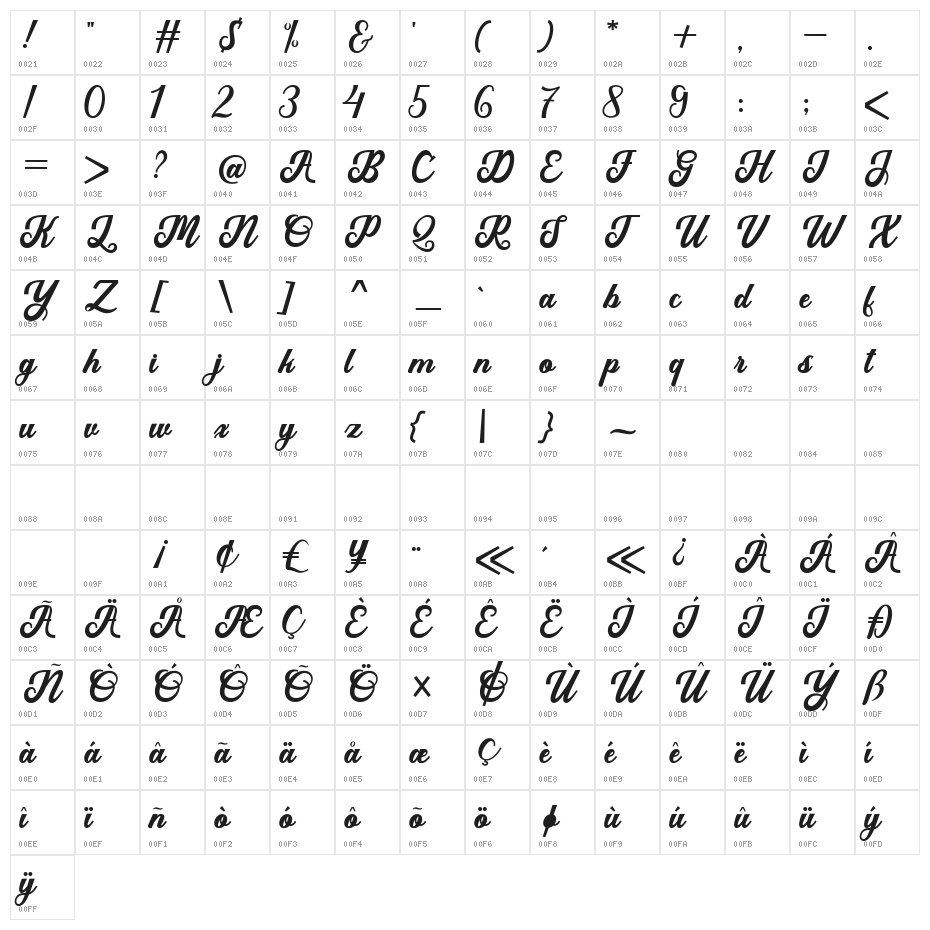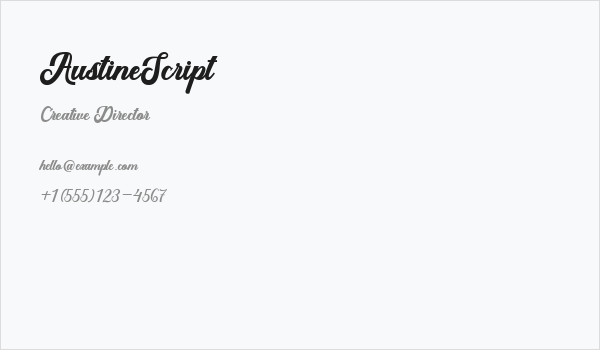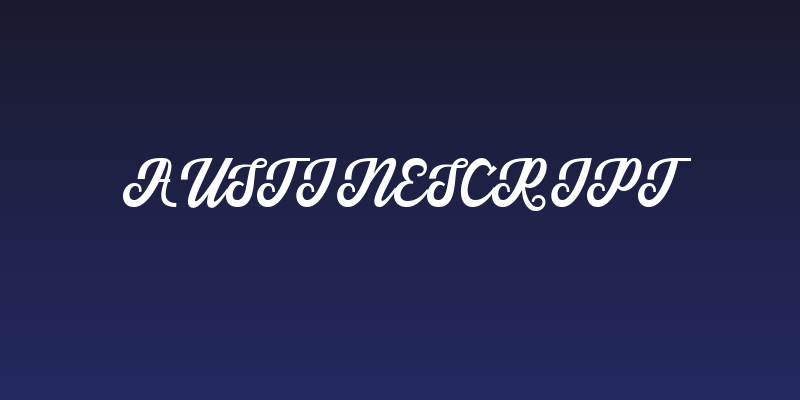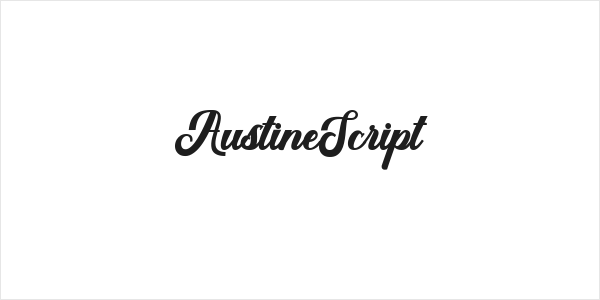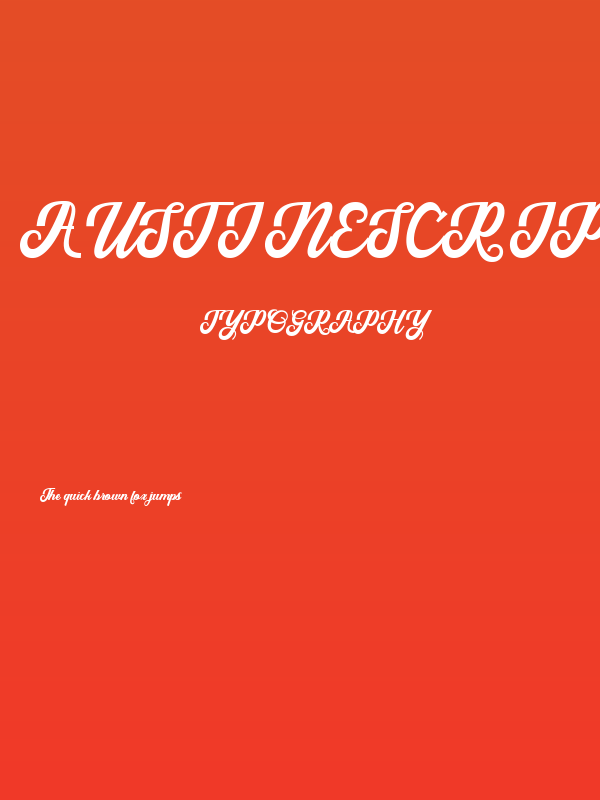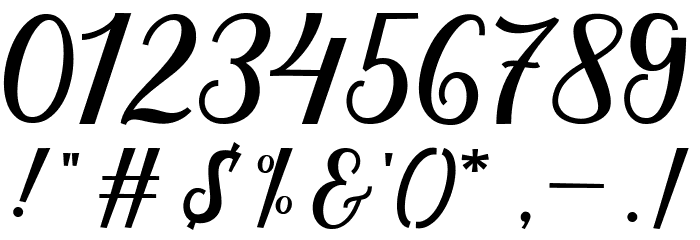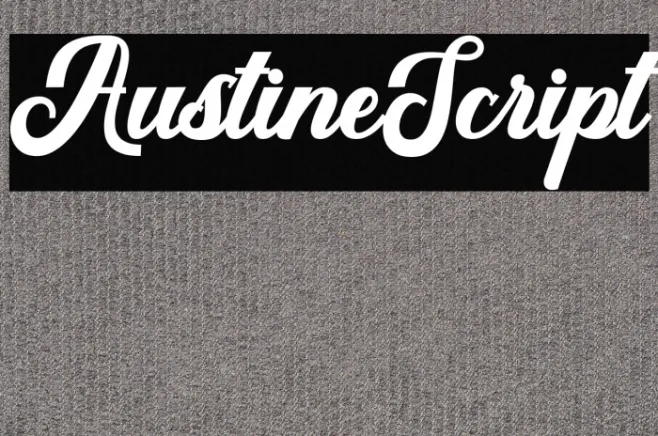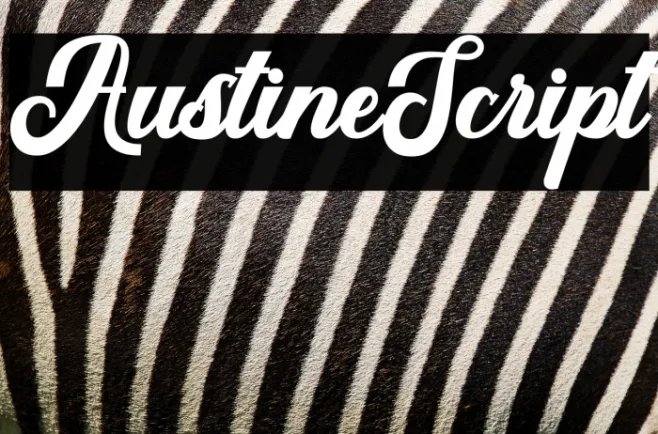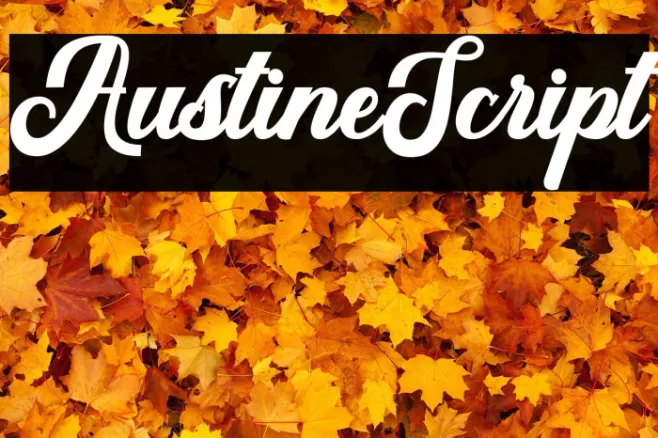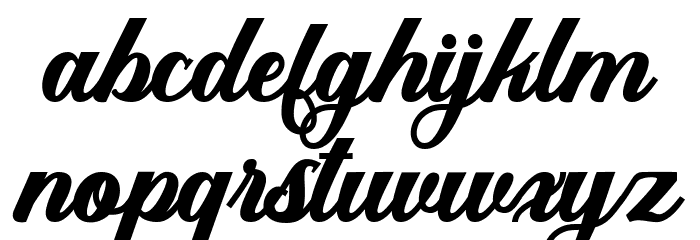
AustineScript Font
This font exudes elegance and sophistication with its flowing, cursive script style. The uppercase letters are ornate, featuring intricate loops and swirls that add a touch of flair. The lowercase characters maintain a consistent flow, with smooth connections between each letter, enhancing readability while preserving the script's decorative nature. The numerals are stylishly slanted, complementing the overall aesthetic. Special characters are thoughtfully designed to match the font's graceful appearance, making it suitable for creative and formal applications.